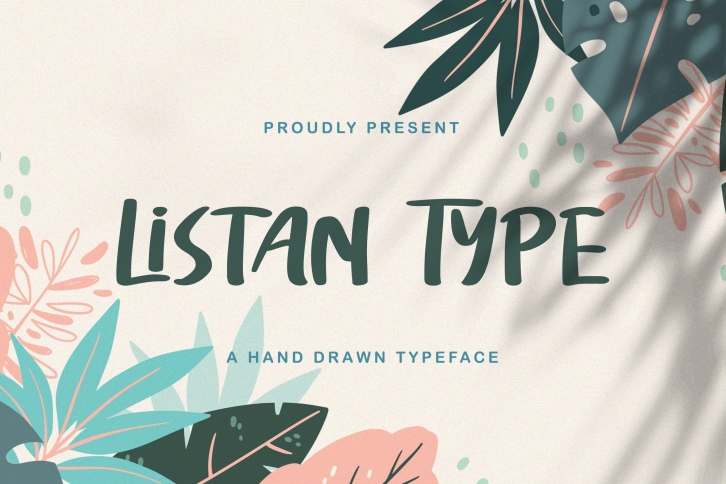
Listan Type is a great font that was designed by Stringlabscreative. Imagine the amount of combinations you can create using this font! The archive is 2.54 MB and it was released on May 18, 2021. Listan Type looks beautiful on wedding invitations, greeting cards, logos, posters, labels, t-shirt designs, logos, business cards and is perfect for use in ink or watercolor works, fashion, magazines, packaging and food menus, children's books and more!